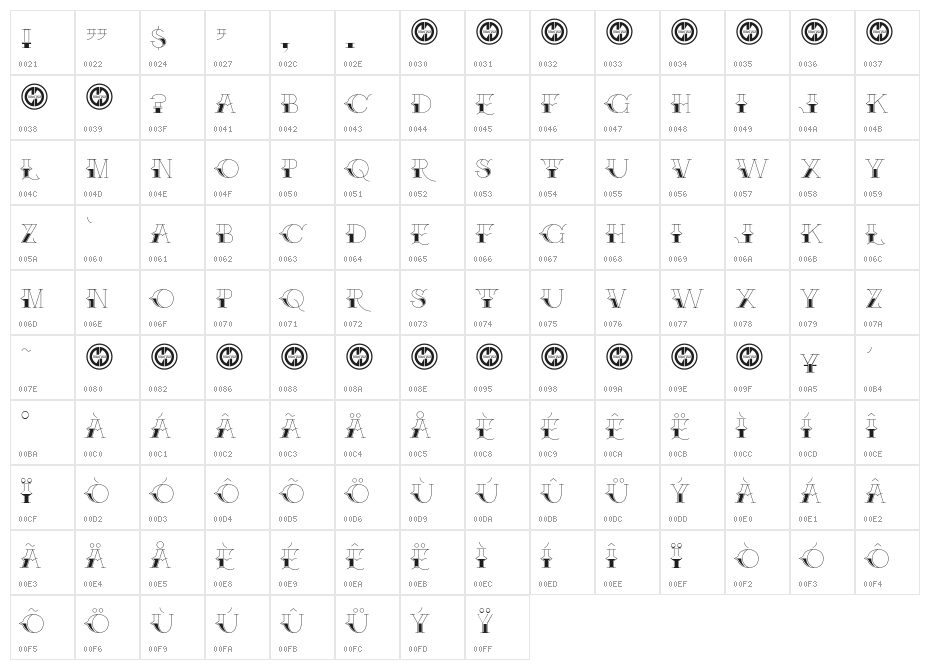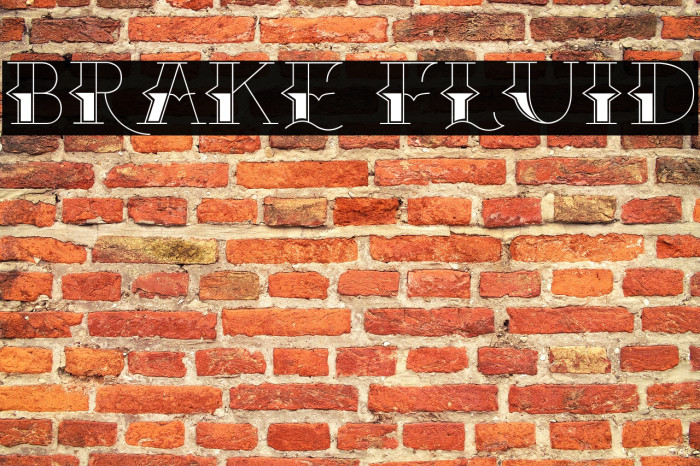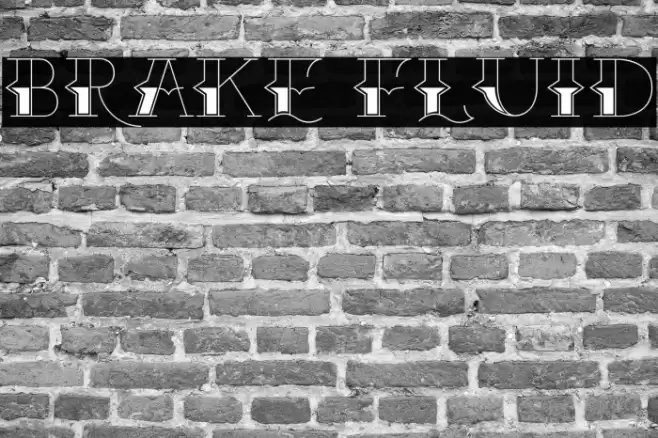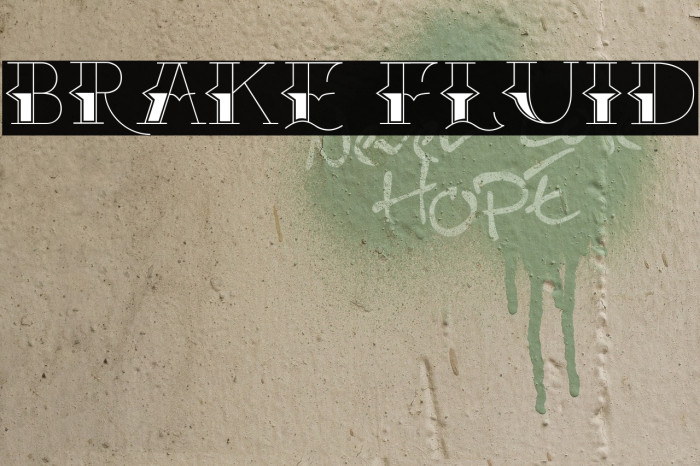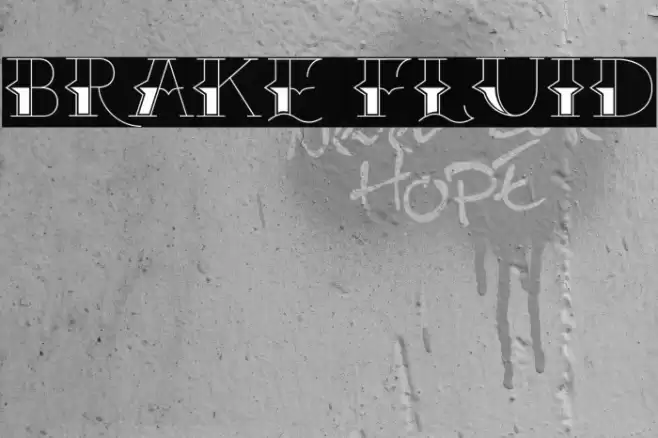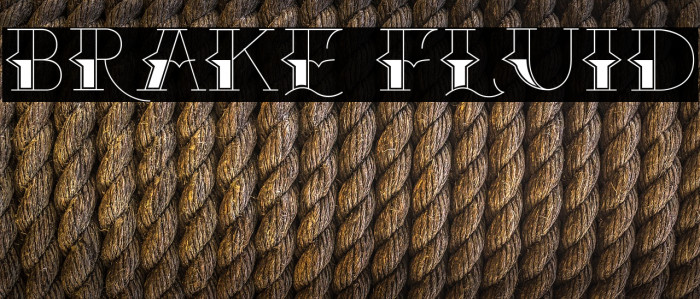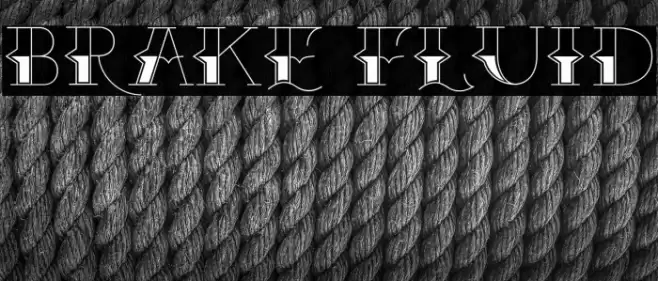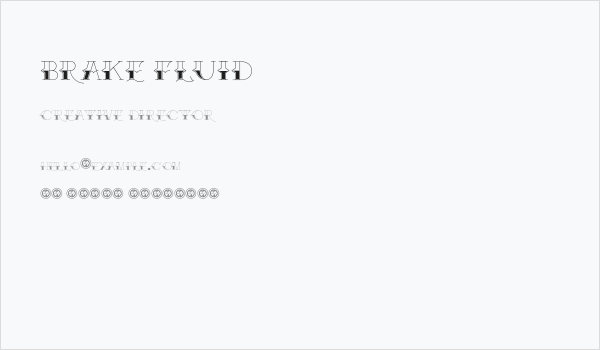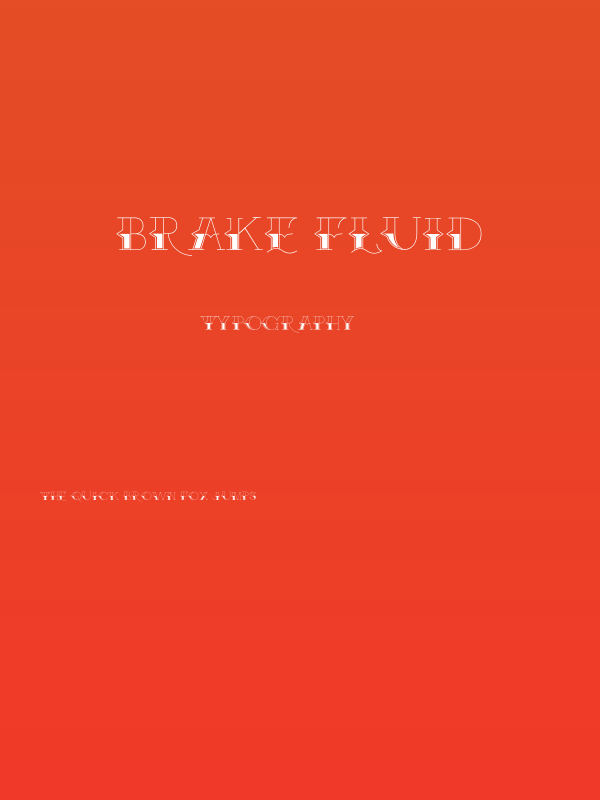
Brake Fluid Font
Brake Fluid Description
This font features a unique and bold design with a strong geometric influence. The letters are characterized by sharp angles and distinct cutouts, creating a dynamic and modern appearance. The uppercase letters are particularly striking, with a blend of thick and thin lines that add to the font's visual interest. The special characters maintain the same geometric style, ensuring consistency across all glyphs. This font is ideal for making a statement, with its eye-catching design and contemporary feel.